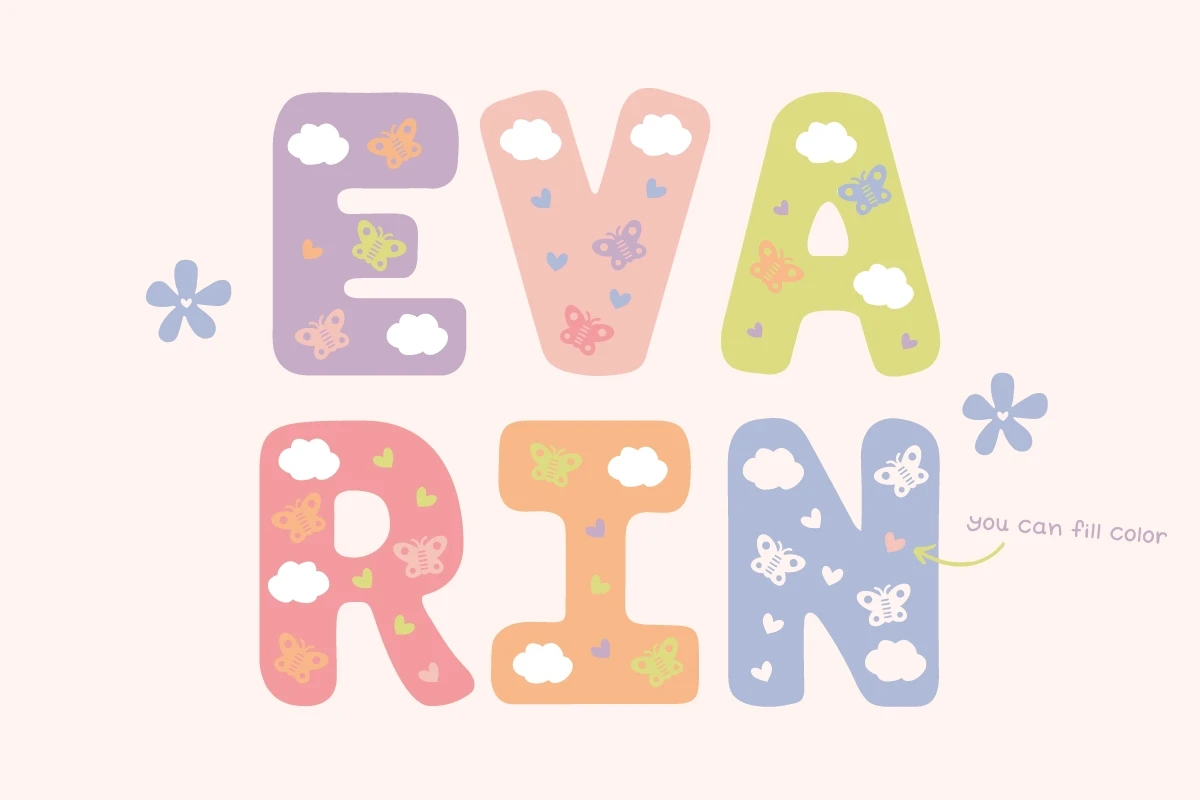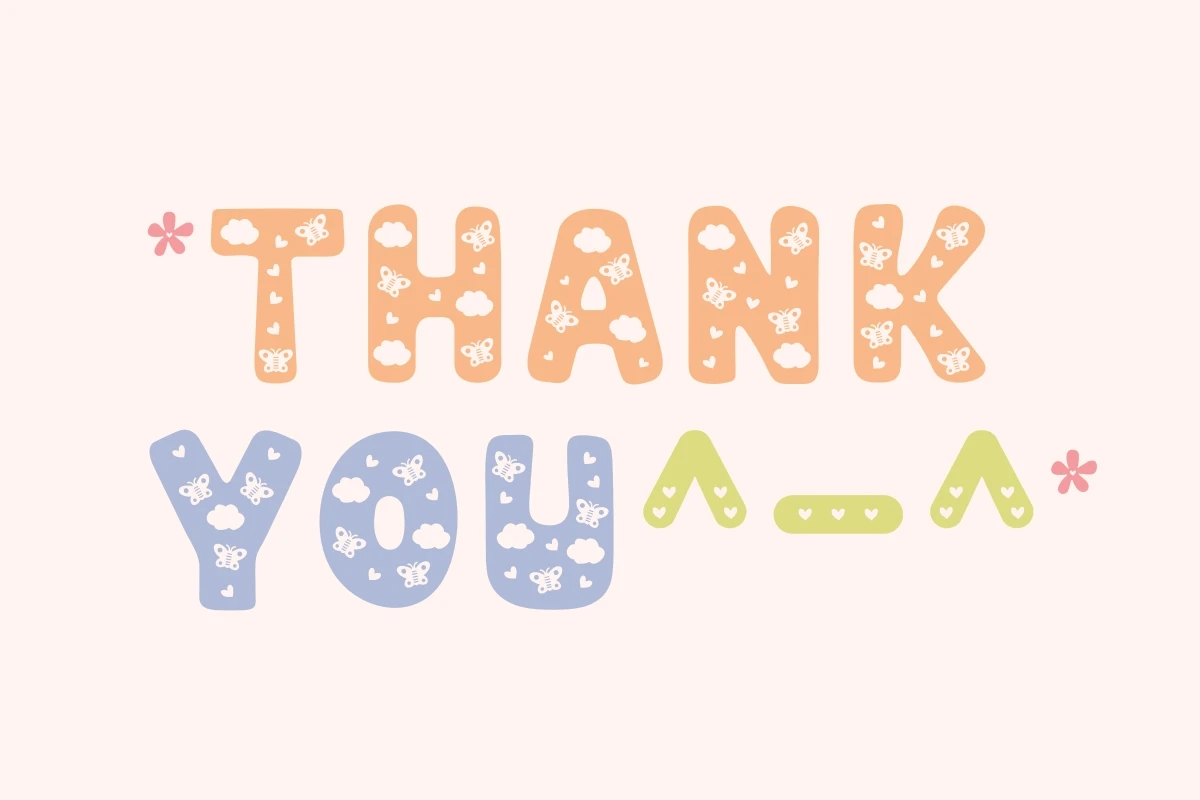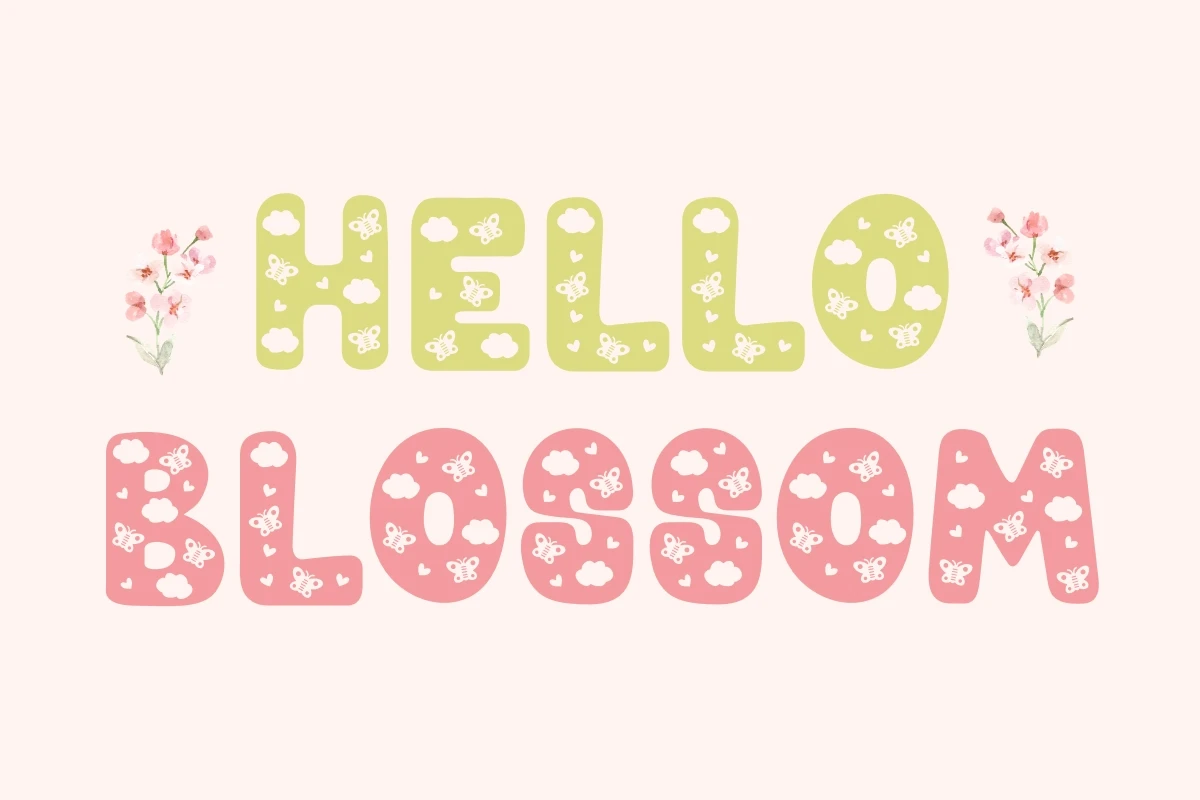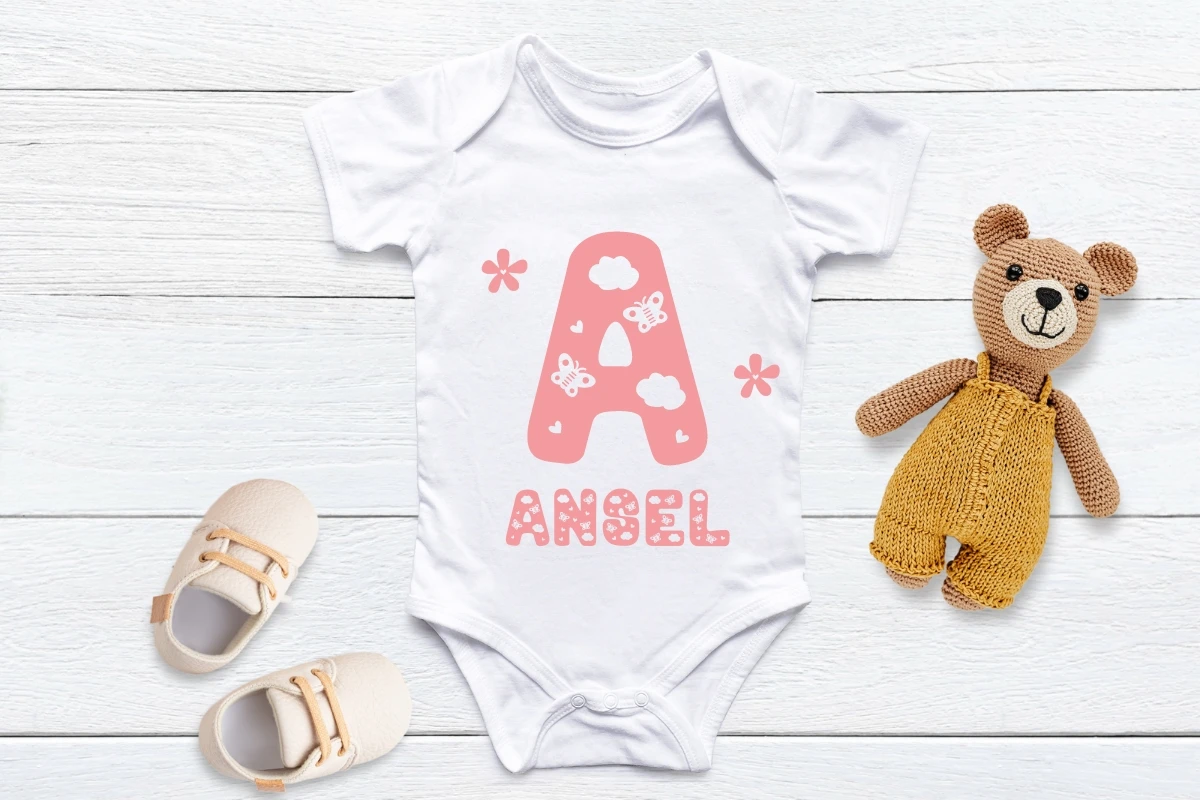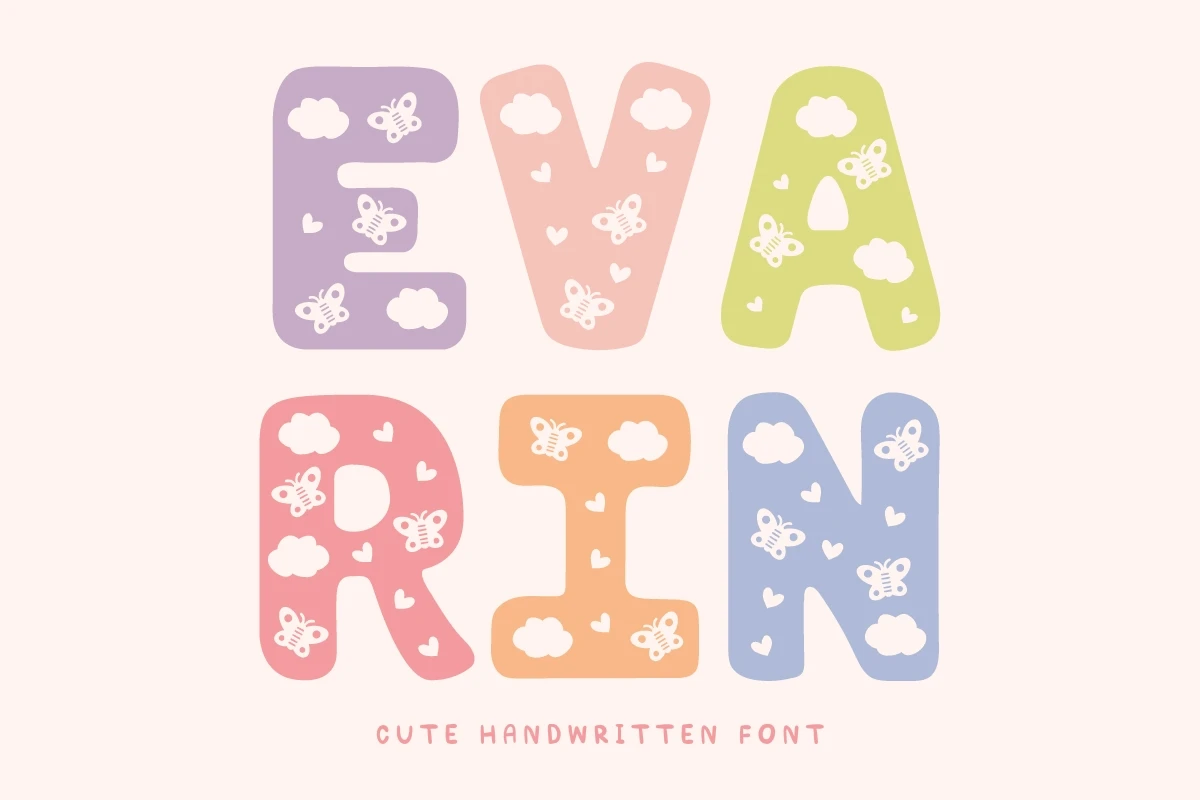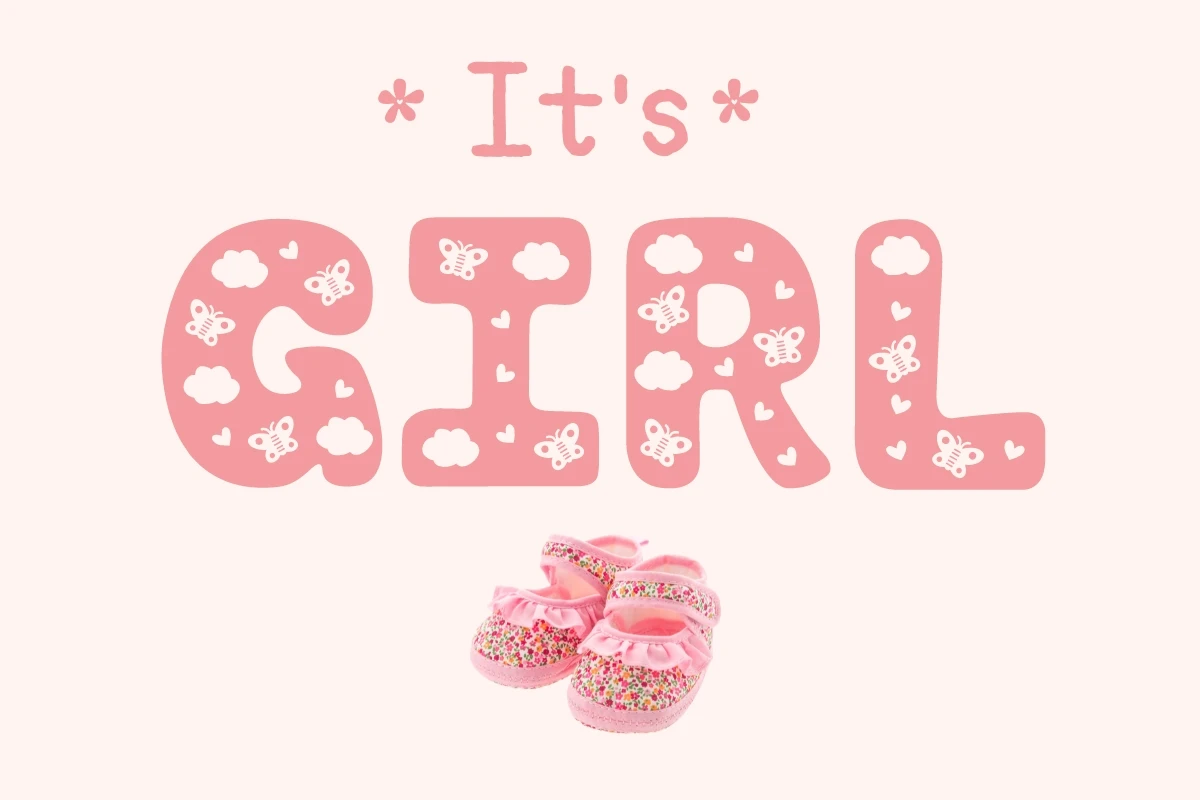
Evarin is a cute decorative font featuring tiny and playful clouds, butterflies, and hearts that evoke a sense of charm and sweetness. This font will add a cute touch to your designs.